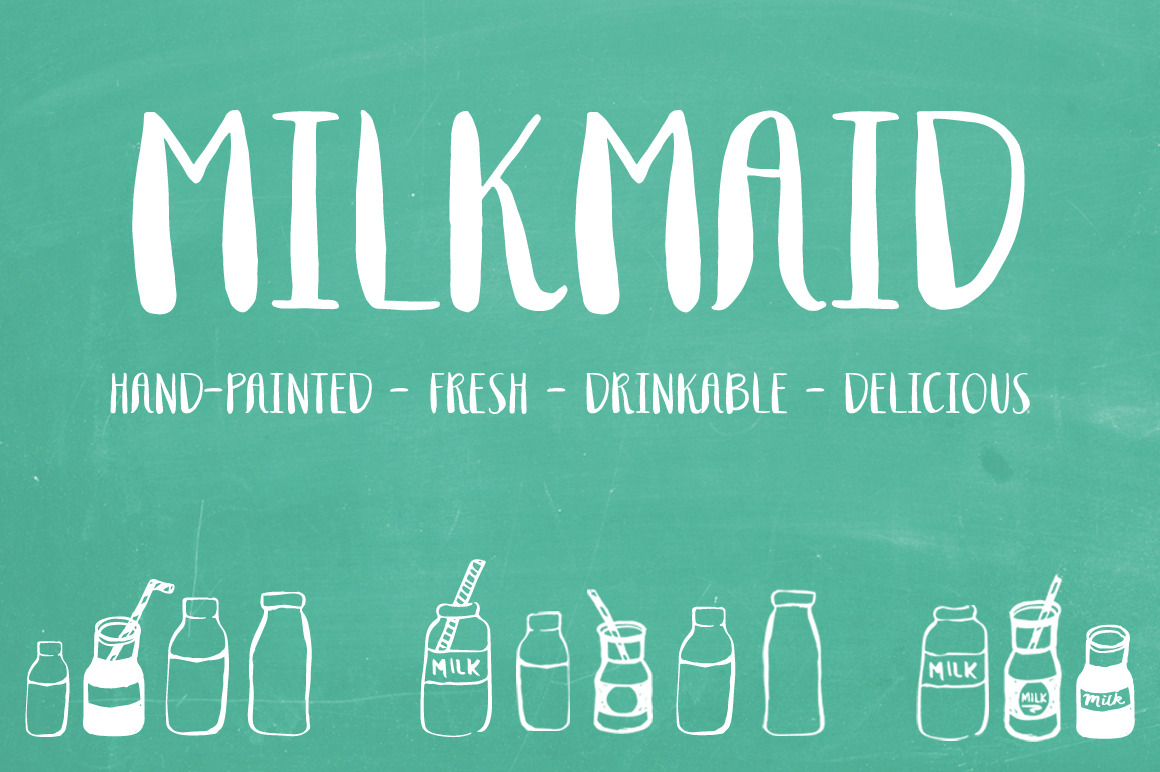
Milkmaid - A Smooth Uppercase Font
Introducing Milkmaid, an uppercase font that does a body good. This font was hand-painted and includes three borders, milk doodles, and of course the standard Latin characters and diacritics.
Milkmaid would be a great font for titles and other display uses and it pairs beautifully with many other typefaces.